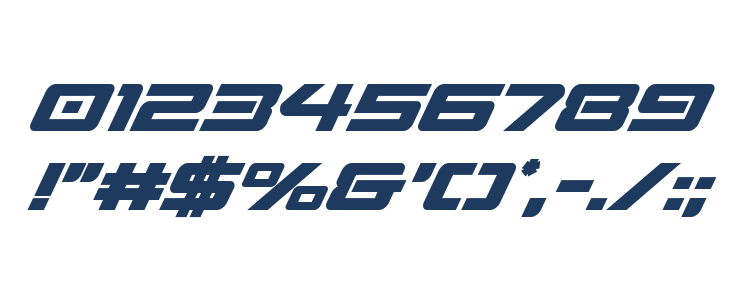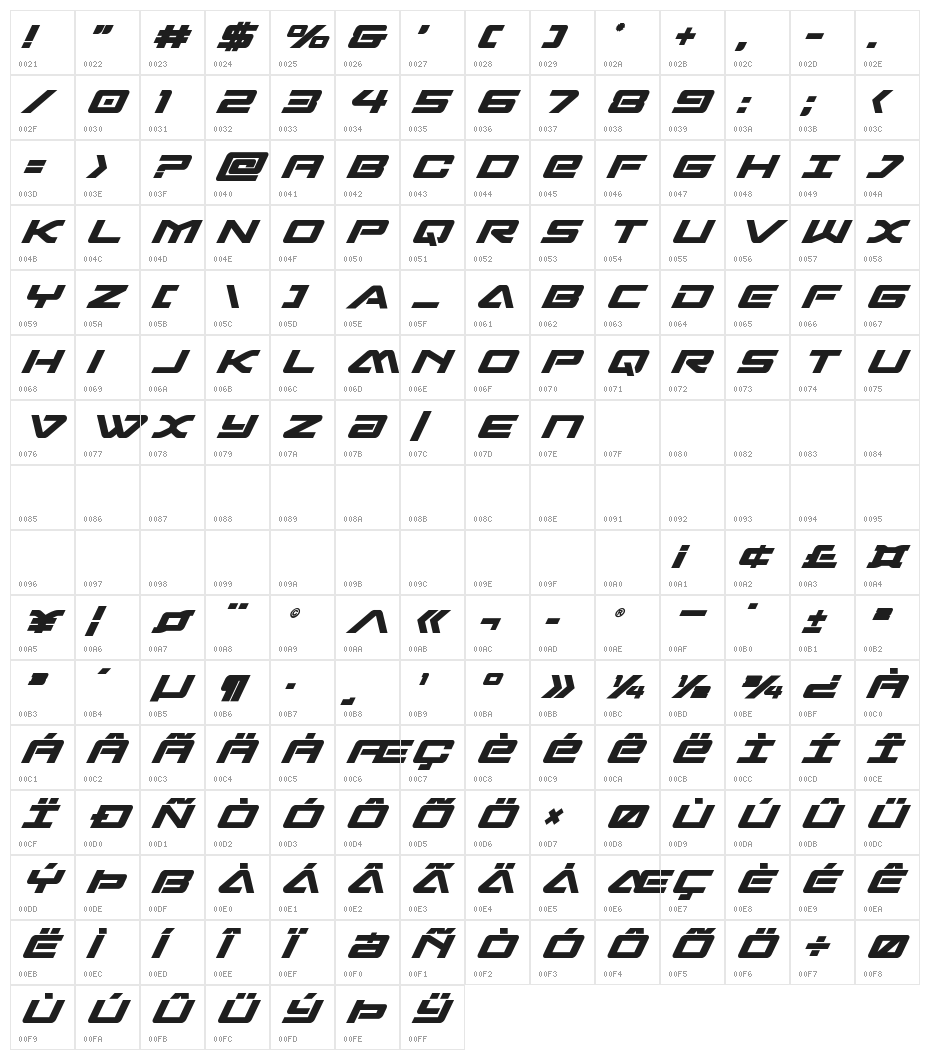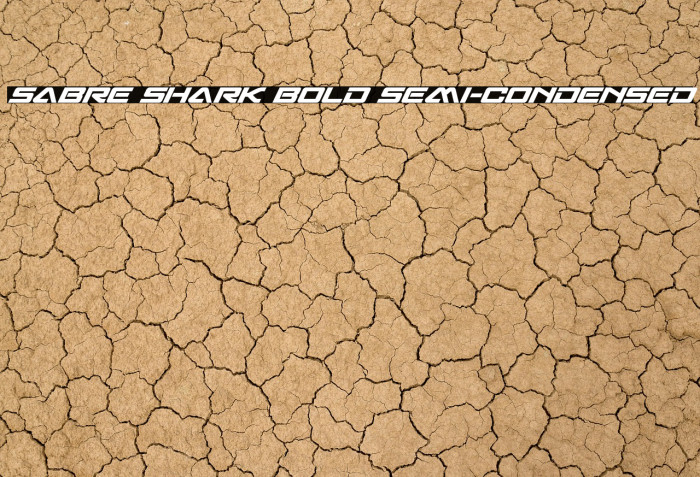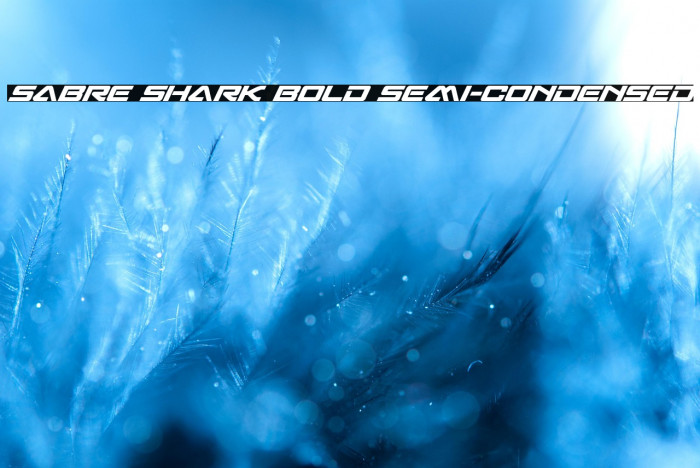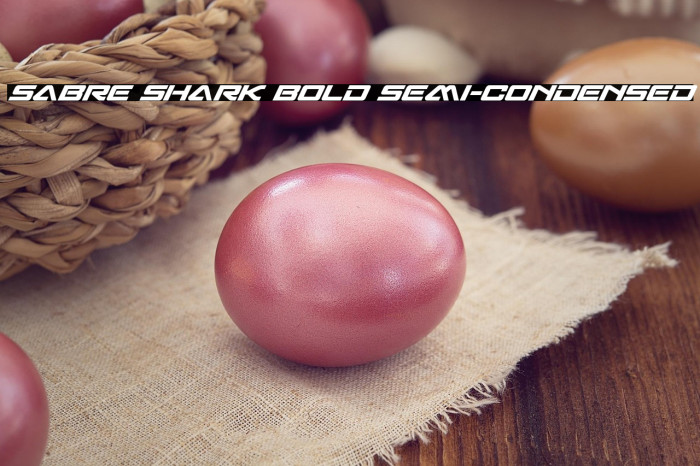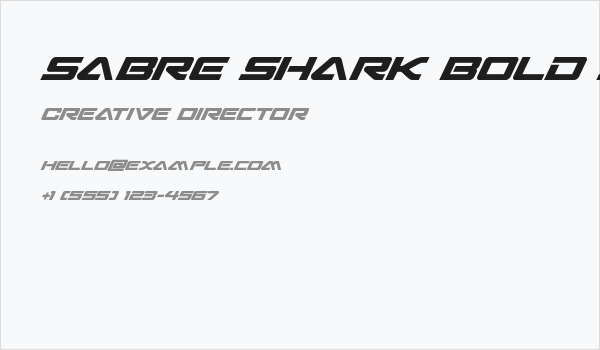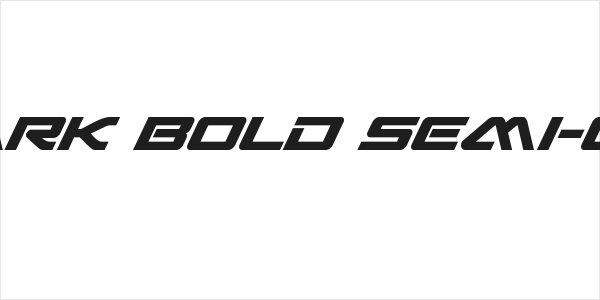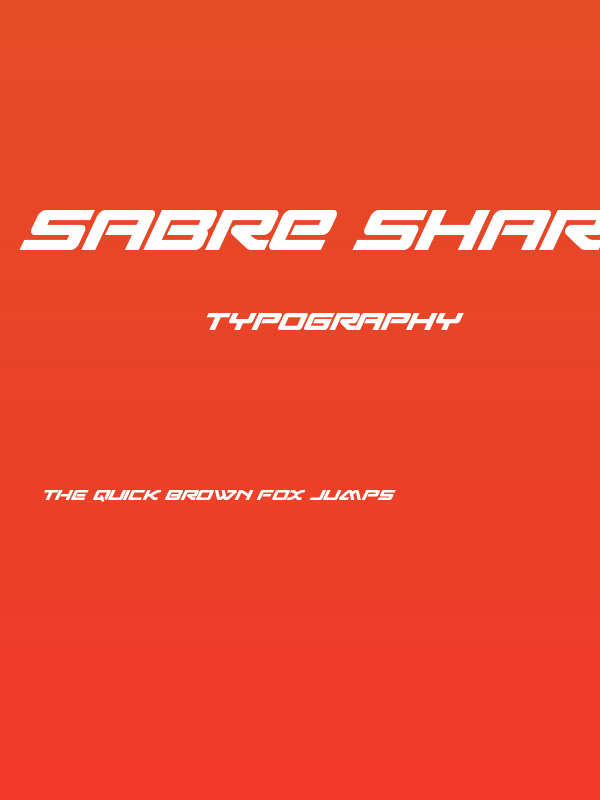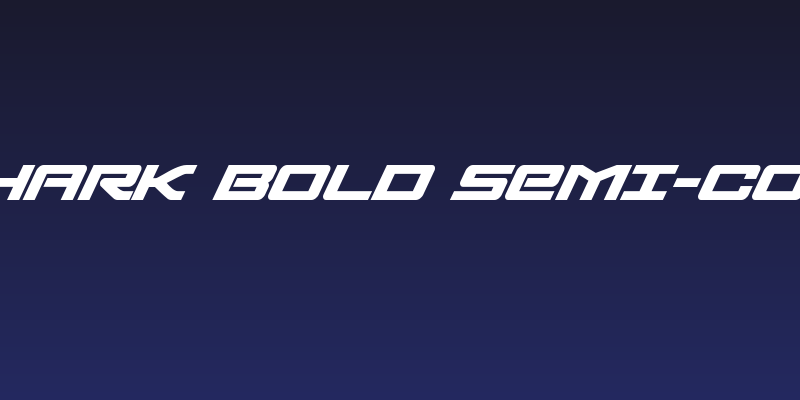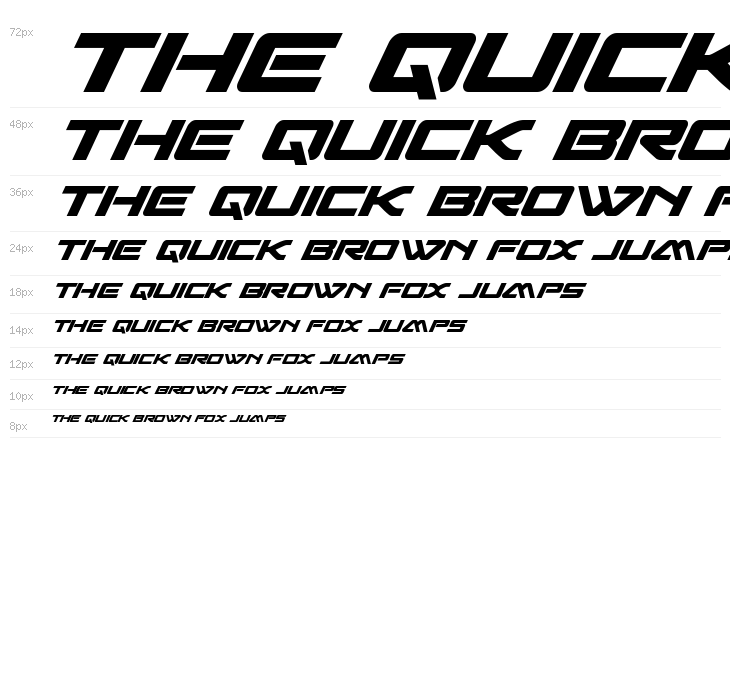
Sabre Shark Bold Semi-Condensed Font
Sabre Shark Bold Semi-Condensed Description
This font features a bold and semi-condensed style with a futuristic and angular design. The characters are sharply defined with a distinct slant, giving them a dynamic and aggressive appearance. The uppercase and lowercase letters maintain a consistent geometric form, while the numerals and special characters complement the overall aesthetic. The font's design is ideal for projects that require a modern and edgy look, such as technology branding, sports team logos, or sci-fi themed graphics. Its boldness ensures high visibility and impact.
| Use Case | Logos, Headlines |
| Proposed Projects | Ideal for technology branding, sports logos, sci-fi graphics, and modern advertising. |